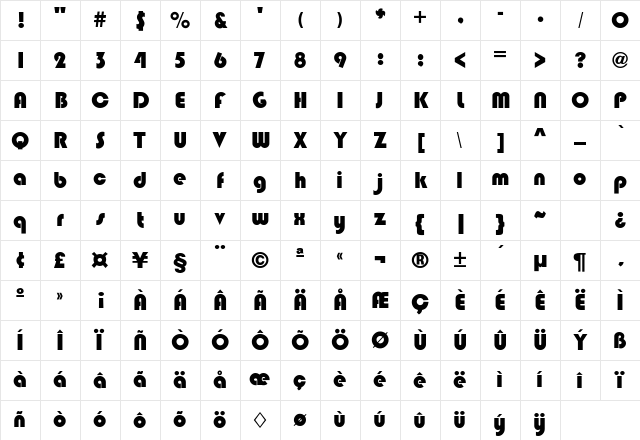
Hip Hop Bold Regular
Design Context for Hip Hop Bold
Hip Hop Bold is a composed and adaptable typeface that performs quietly and consistently across a wide range of design contexts. Its bold stroke weight gives it real presence on the page.
Pro Tip: Use Hip Hop Bold in both headline and body roles to test its range before committing to a single application.